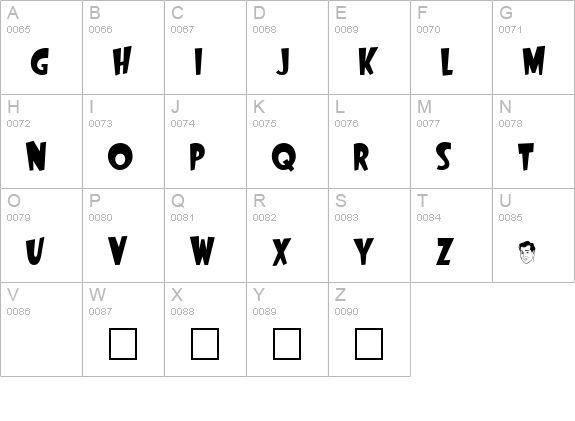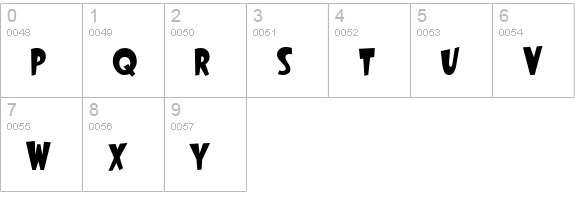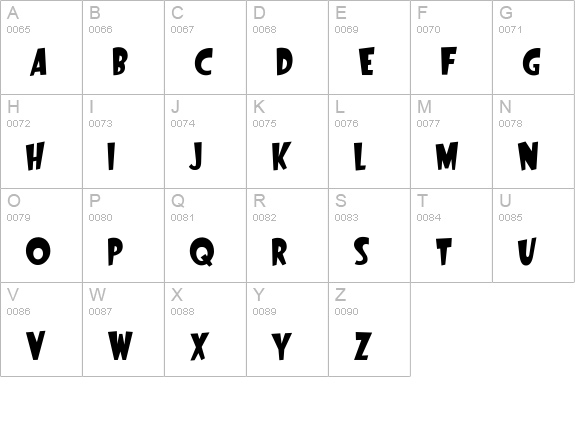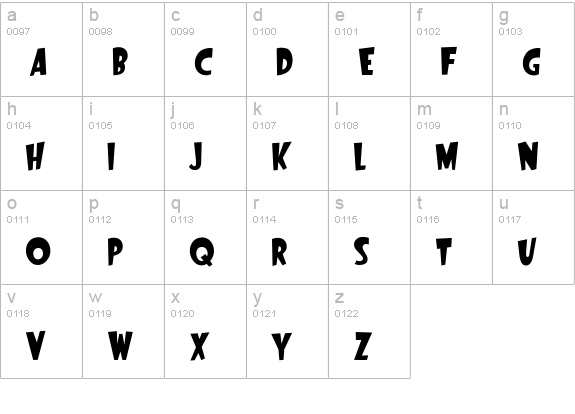
Startling Font Details
Startling font is a visually striking typeface that is sure to captivate and amaze. With its bold and daring design, this font is perfect for making a statement and grabbing attention. The unique and dynamic letterforms of Startling font lend themselves to a wide range of creative projects, from eye-catching logos to impactful headlines. What sets Startling font apart is not only its impressive aesthetics but also its accessibility. This font is available for free download at FontsMarket.com, making it a valuable resource for designers and creatives looking to add a touch of excitement to their work without breaking the bank. Free of charge, yet priceless in its impact, Startling font offers a refreshing alternative to conventional typefaces. Its versatility and expressive nature make it an excellent choice for both digital and print design projects. Whether you're designing a cutting-edge website, an attention-grabbing poster, or a captivating magazine spread, Startling font is the perfect companion to elevate your work to new heights. With Startling font, your designs will never go unnoticed. Its bold and fearless presence will leave a lasting impression on your audience, ensuring that your message is conveyed with power and style. Download this incredible font for free at FontsMarket.com and experience the thrill of using a typeface that demands attention and leaves a lasting impact.